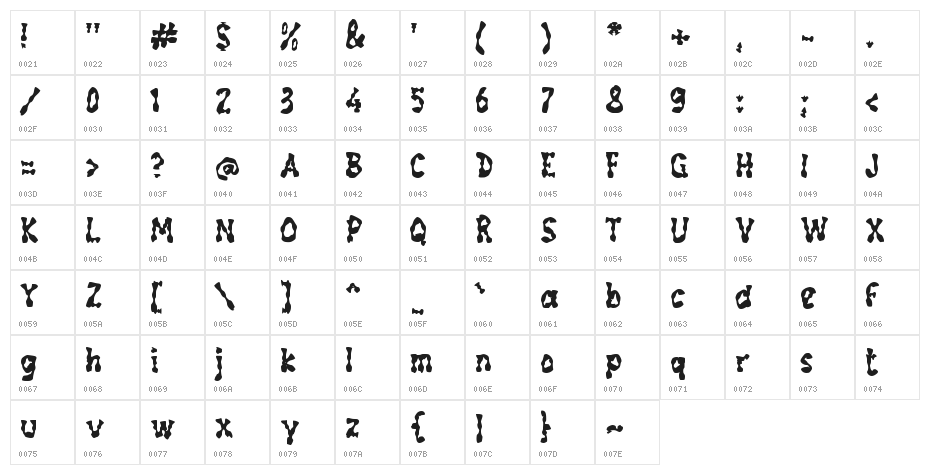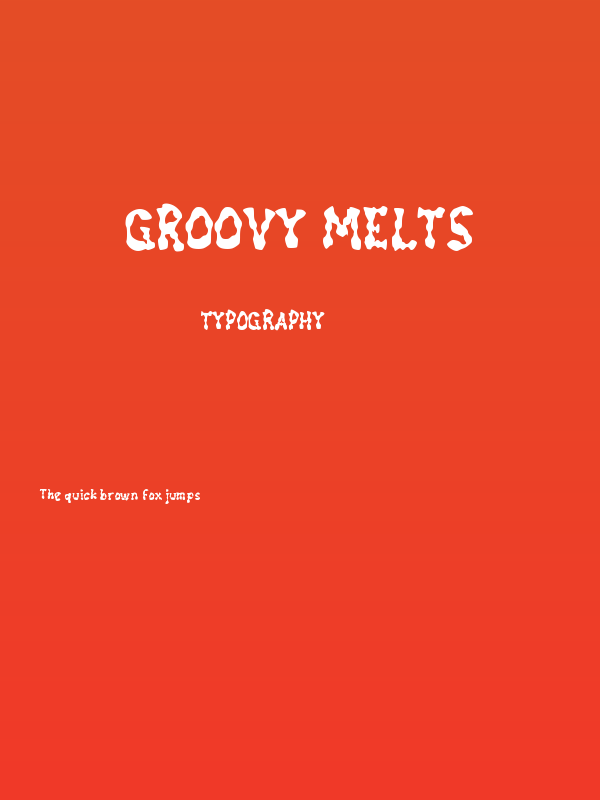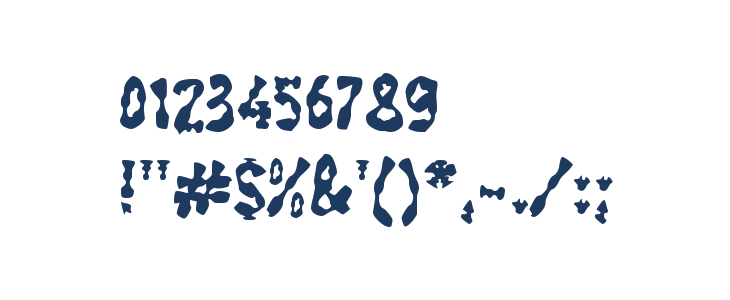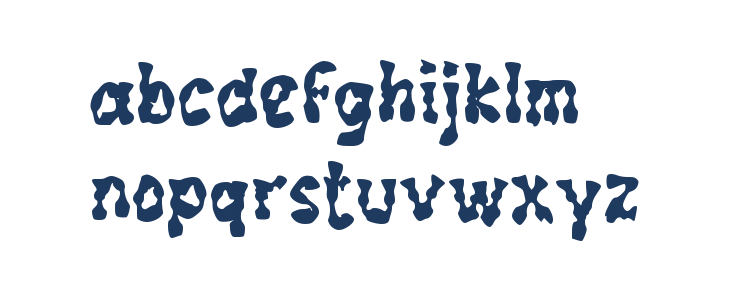
Groovy Melts Font
Groovy Melts Description
This font features a playful and dynamic design with a melting, fluid appearance that gives it a unique and eye-catching look. The characters have irregular edges and a bold presence, making them stand out in any design. The uppercase and lowercase letters maintain a consistent style, with numbers and special characters following the same aesthetic. The font's organic, freeform shapes suggest a sense of movement and creativity, making it ideal for projects that require a fun and unconventional typeface.
| Proposed Projects | Ideal for creative projects such as posters, album covers, children's books, and branding that requires a fun and unique typeface. |